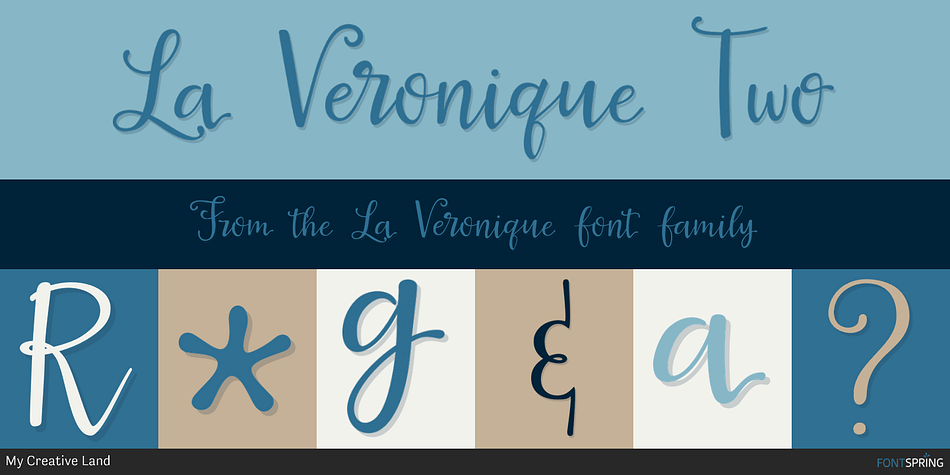
La Veronique Two
La Veronique is a multiple classification font family. This typeface has seven styles and was published by My Creative Land.
A hand written font family, created with the upcoming spring and sunshine in mind.
A hand written font family, created with the upcoming spring and sunshine in mind. It is full of alternates, swashes, ligatures and other open type features. You can use it for wedding invitations, thank you cards, quotes - the choice is only limited by your imagination!
Style Two
Styles Modern Calligraphy, Script